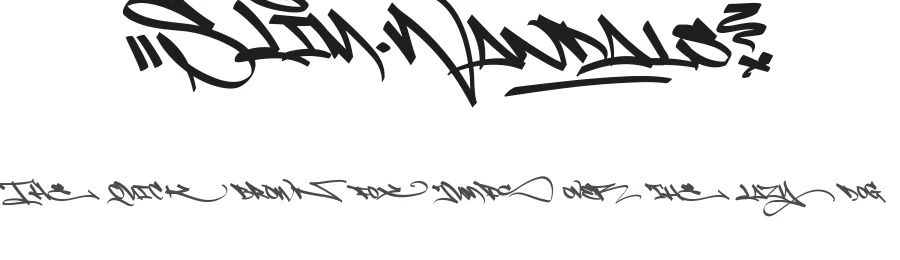
About Script Demolition Font
Script Demolition is my firs own designed font from 2005. This was the name of my metal music I was composing that timeΒ
I found these files and decided to update this style cause I still love it.
Script Demolition Font is a script font that shines as a display or heading face. Pair it with a clean sans-serif or serif font for body text β the contrast creates a clear hierarchy while the two styles stay balanced and easy to read.